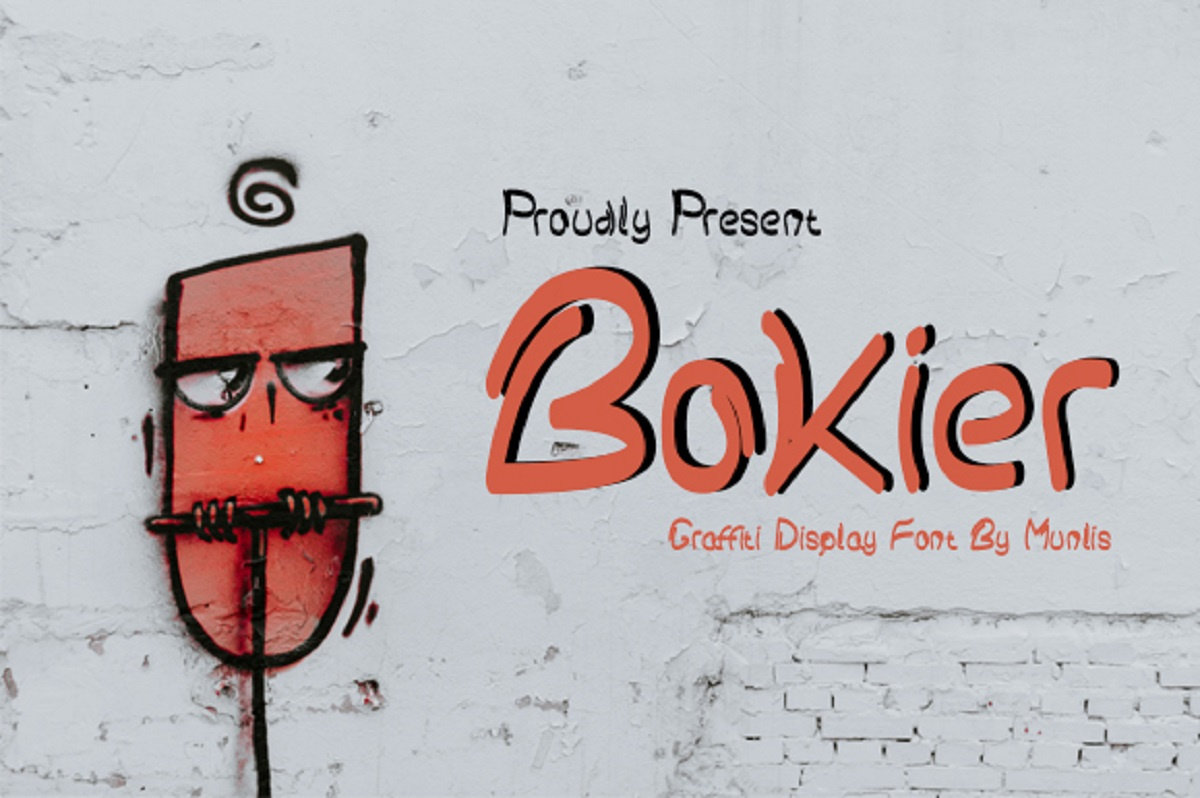
Bokier Graffiti Script Display Font
Bokier is a playful and modern display font. Clean and a little bit quirky, this font is the perfect fit for all of your logos, branding, social media, and crafty DIY projects. DOWNLOAD HERE : https://www.creativefabrica.com/product/bokier-2/ref/236048/